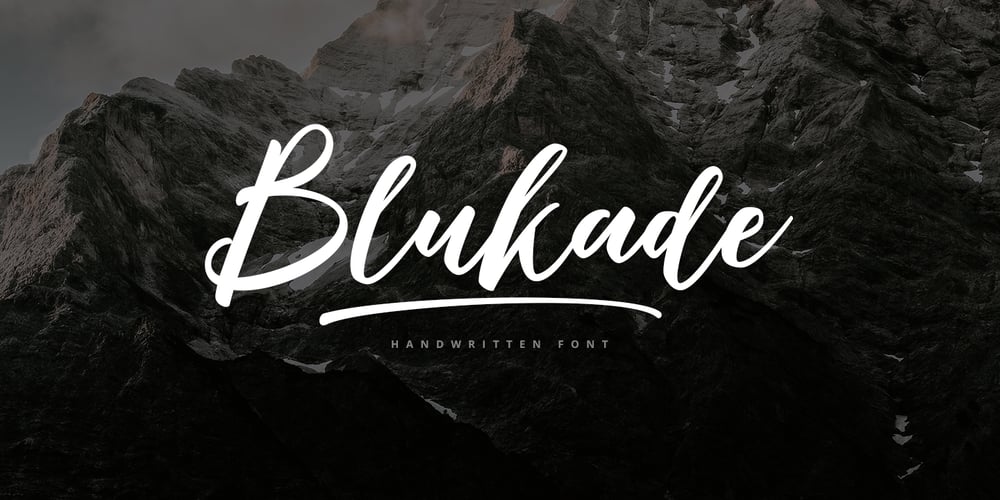
Blukade Script Font Family was designed by Juni Fadil Putra and published by FadeLine Studio. Blukade Script contains 2 styles and family package options. Blukade is a handwritten script with a style elegant, sweet and simple. Very suitable to meet your various design needs that are trending now, and also includes a set of Extras to add even more beauty.